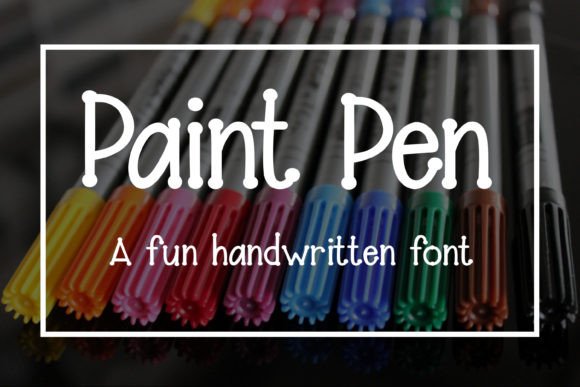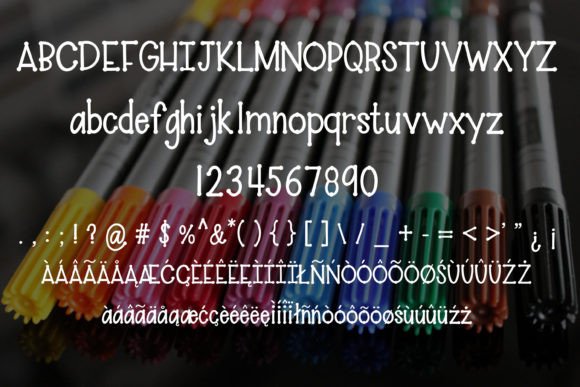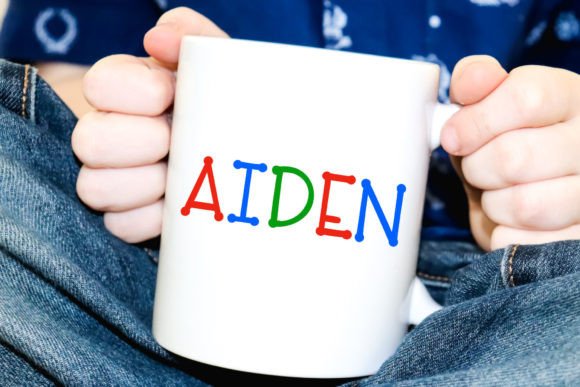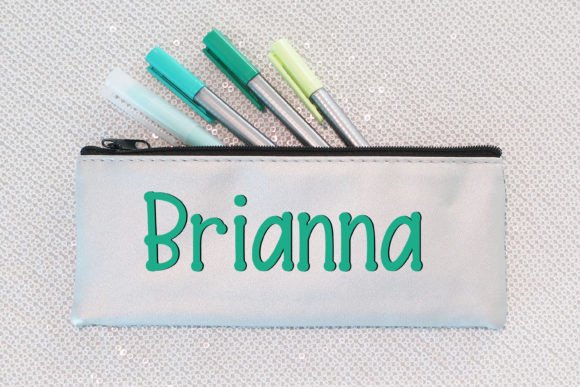
Paint Pen Font
Paint Pen is a fun and friendly handwritten font. Use it to turn any design idea into a true standout. Get inspired by its unique charm and create lovely designs.